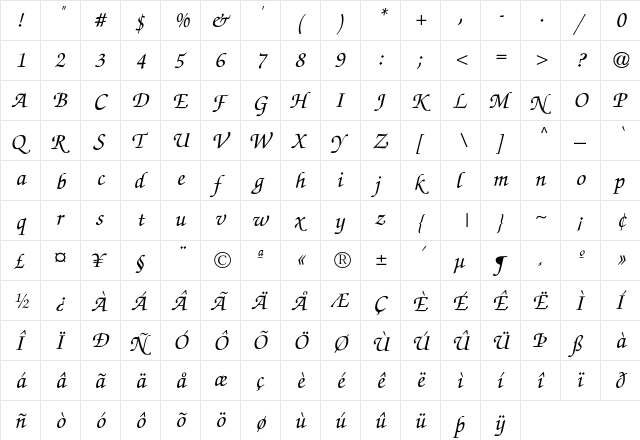
Defoe Italic Regular
Design Context for Defoe Italic Typeface
Defoe Italic takes a measured approach to typography — its balanced proportions and neutral character make it a reliable workhorse for both digital and print work. Its italic angle brings a sense of urgency and motion to the letterforms.
Pro Tip: Try Defoe Italic for annotation and caption copy alongside an upright companion — the contrast in angle creates a dynamic but ordered typographic system.